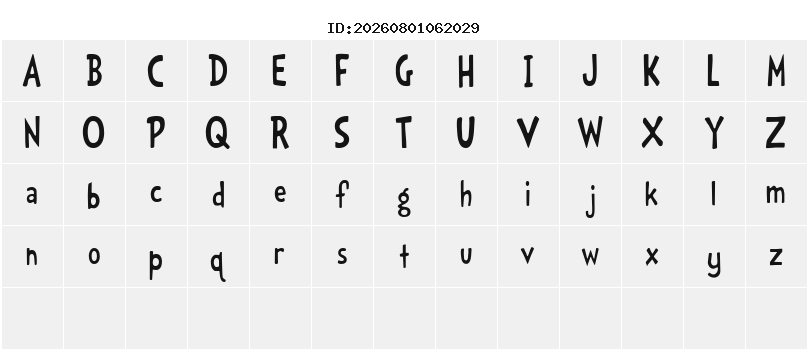
• Font Name: LOL!
• Designer: SpideRaY
About LOL!.ttf
LOL!.ttf is a modern, elegant sans-serif font designed for ultimate readability and visual harmony. Perfect for branding, headlines, web design, and print materials.